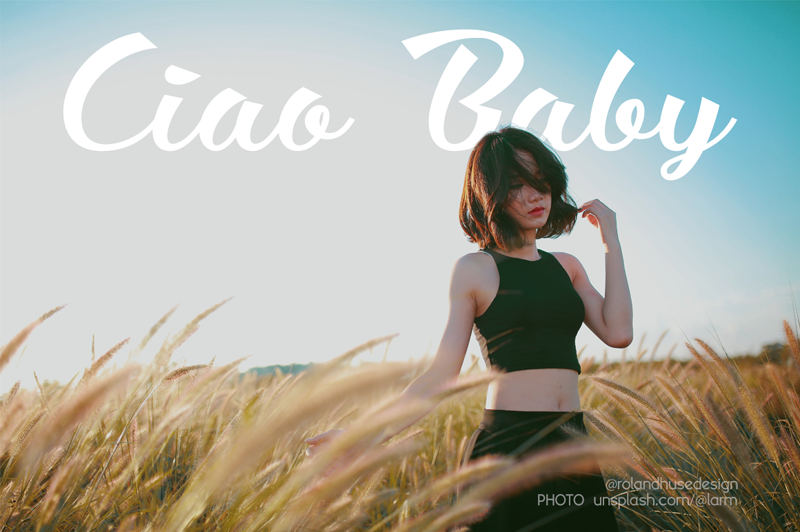
Preview and download Ciao Baby Font. Created by Runes & Fonts in Script Various styles with Free for personal use license.
CIAO BABY A casual retro style script with default lowercase and uppercase characters and numbers. Free for personal use only. For commercial use and/or full version donate via fonts@rolandhuse.com or contact@rolandhuse.com You MAY NOT sell my fonts or claim them as your own. You MAY NOT edit or rename my fonts. You MAY redistribute my fonts if: 1. You credit me (Roland Huse). 2. Keep the READ ME file intact within the zip folder. 3. Provide a link back to my website (www.rolandhuse.com). Thank you & I hope you like this font, Roland Follow my work on instagram @rolandhusedesign Awesome poster image by Larm Rmah from https://unsplash.com/@larm |